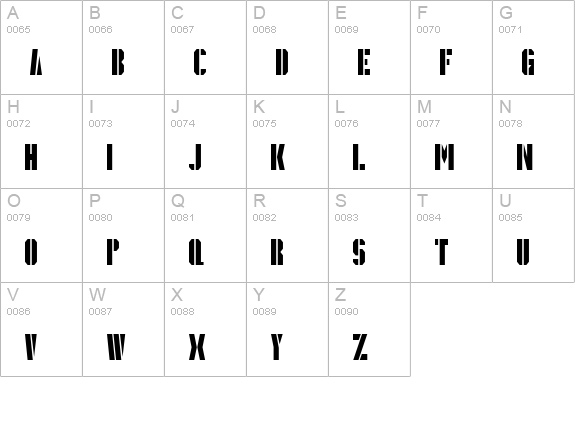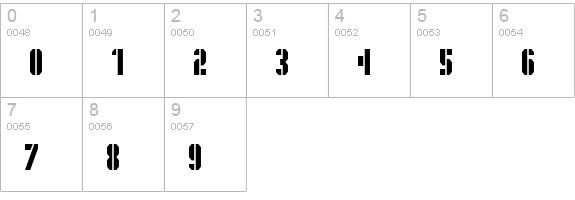
PresidentGas Font Details
PresidentGas font is a modern and stylish typeface that exudes sophistication and elegance. With its clean lines and contemporary design, this font is perfect for a variety of design projects, from branding to editorial design. Its sleek and professional appearance makes it a versatile choice for both digital and print applications. What sets PresidentGas font apart is its unique blend of classic and modern elements, creating a timeless and sophisticated look. The font features a range of weights and styles, allowing for flexibility and creativity in your designs. Whether you're looking to create a sleek and professional logo or a stylish editorial layout, PresidentGas font has you covered. The best part? PresidentGas font is completely free to download at FontsMarket.com! With just a few clicks, you can add this elegant typeface to your collection and start using it in your projects right away. Don't miss out on this opportunity to elevate your designs with the timeless beauty of PresidentGas font.